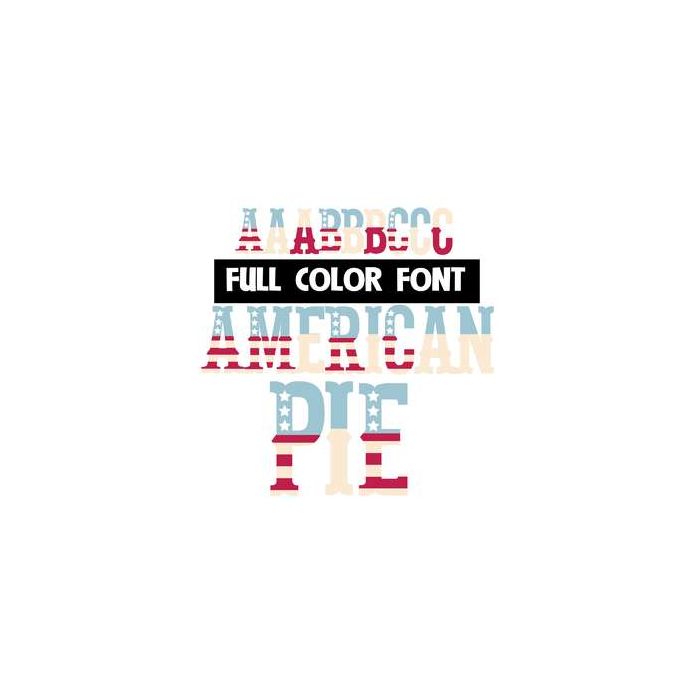
This full color font features stars and stripes on the uppercase. The lowercase is duo-color and there is an alt case you can access through your system's character map. This font works best for titles, displays, posters and more. Please note color fonts will show as black in non compatible programs. This font type is compatible with Silhouette Studio.